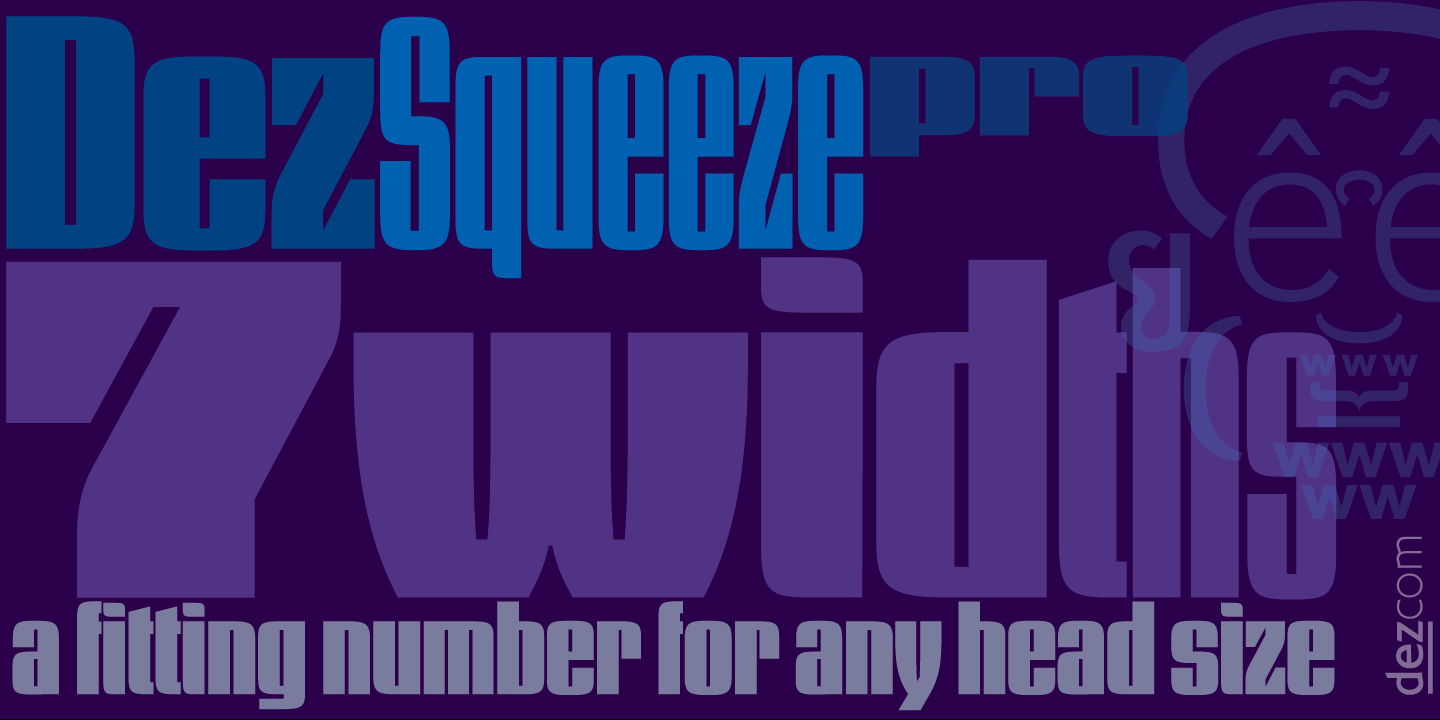
Dez Squeeze Pro
Font Family by Dezcom
Dez Squeeze Pro is a display family in seven bold widths. Choose the width that fits the space available for your headline. Dez Squeeze Pro is a very bold display face with multiple language support, nearly 600 glyphs, stylistic sets, Unicase, and many alternates. Dez Squeeze Pro is Bold enough for knock-out photographs, so go ahead, knock yourself out.